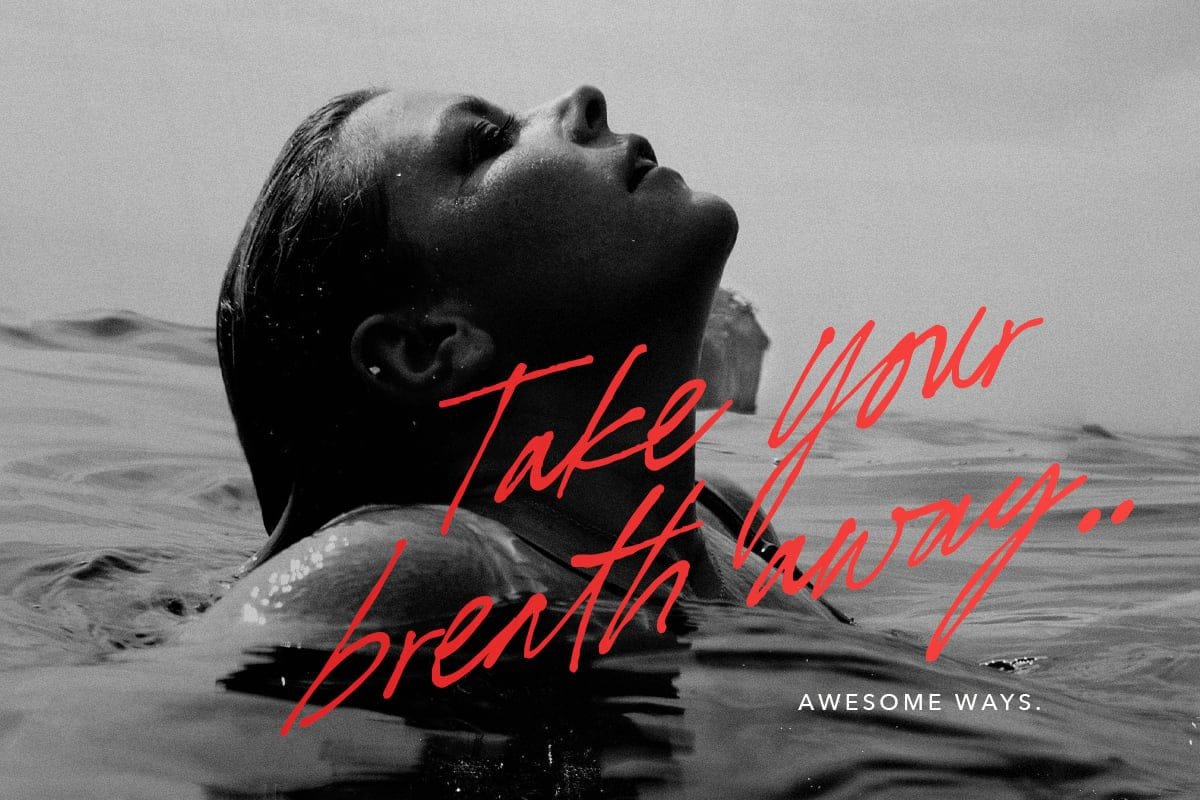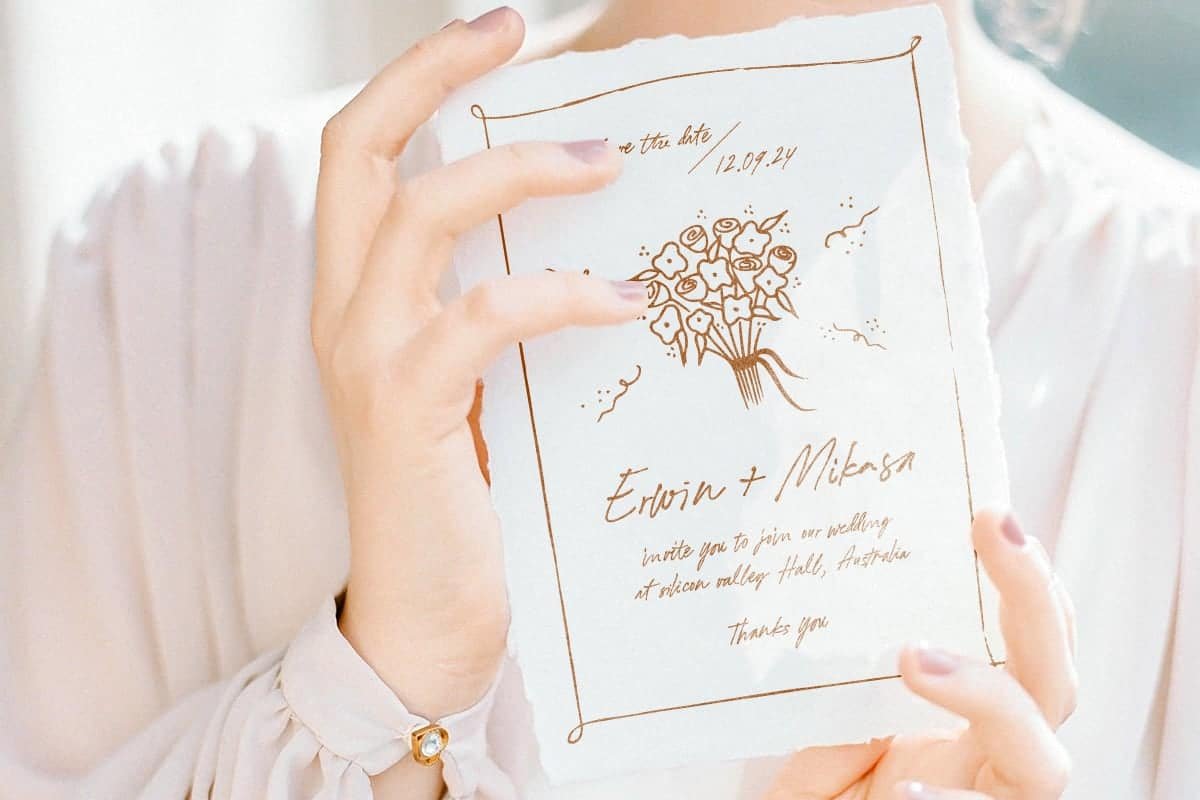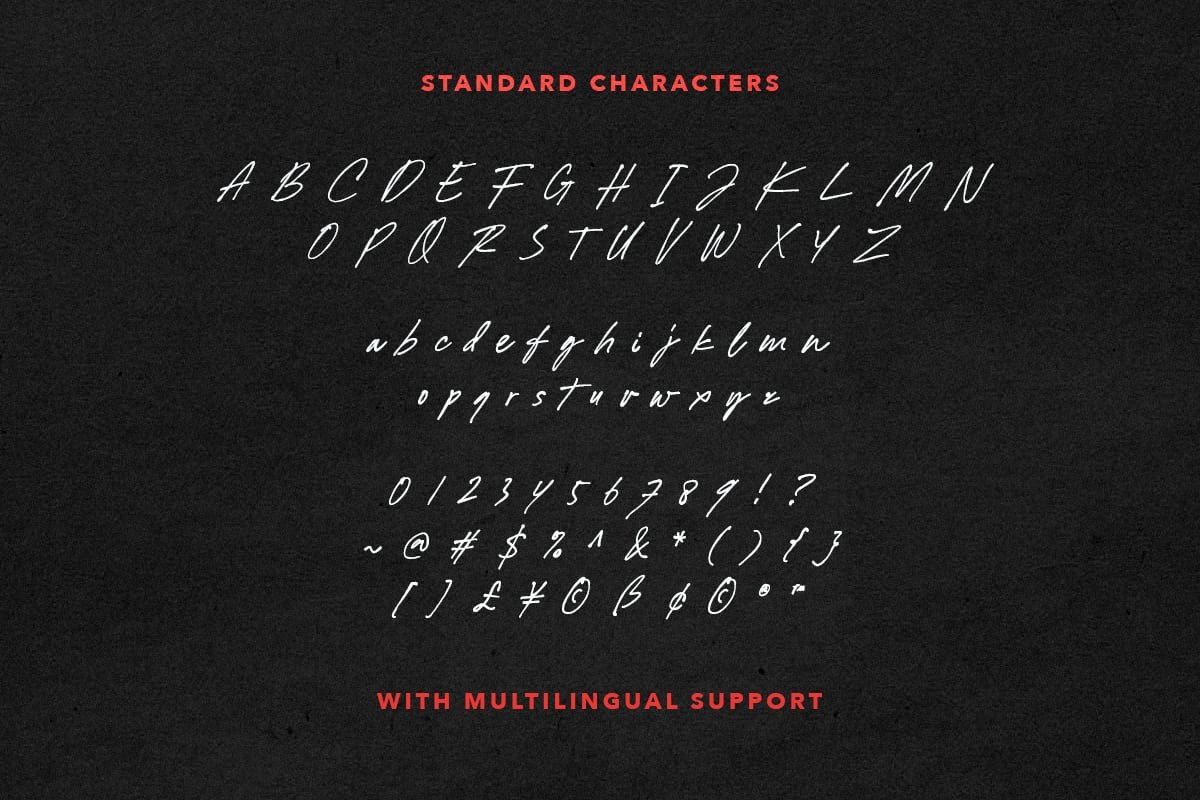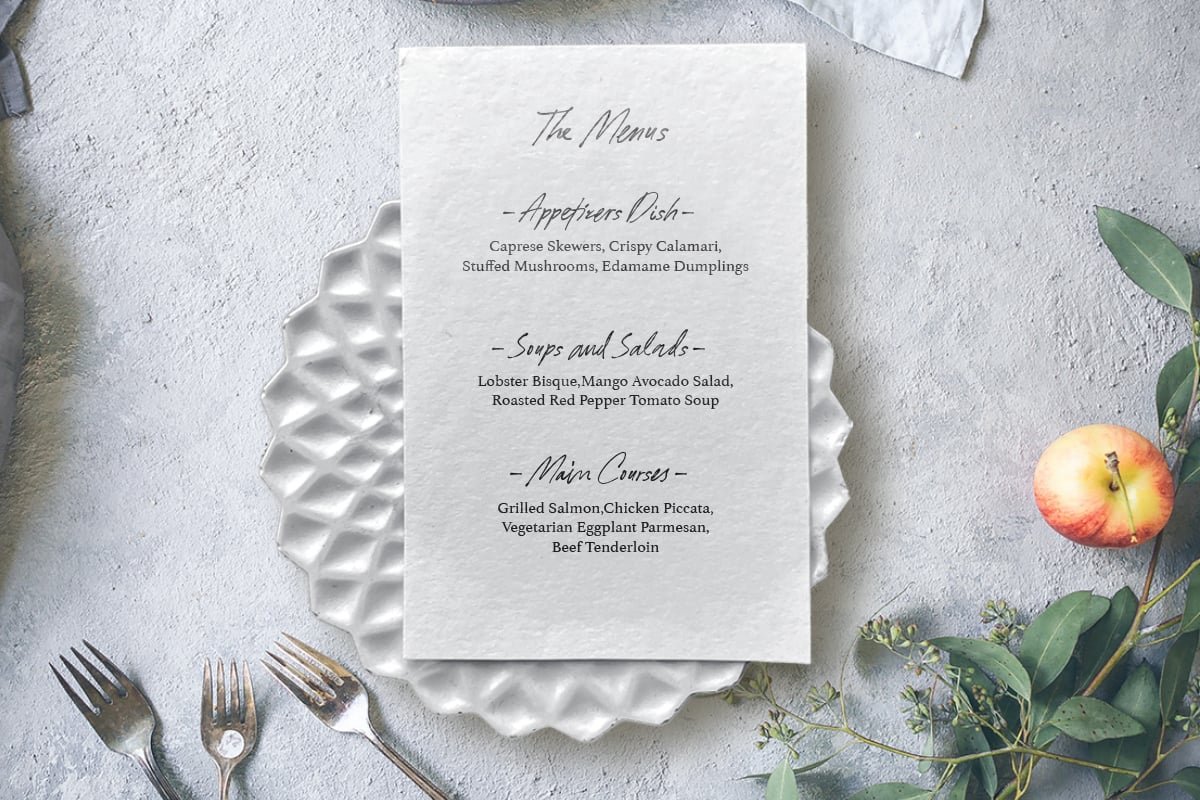
12pxAwesome Ways – Ligature Script Font
Awesome Ways is a handwritten script with bunch of ligatures that will make your project looks more natural and made by hand. You can use this font for any purposes such as label, logo, handwritten quotes, wedding invitations and more. This font also support multi language!